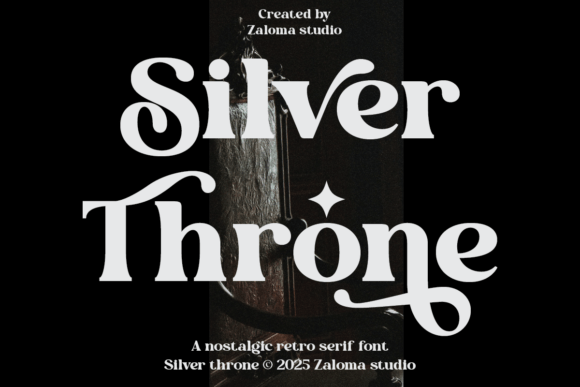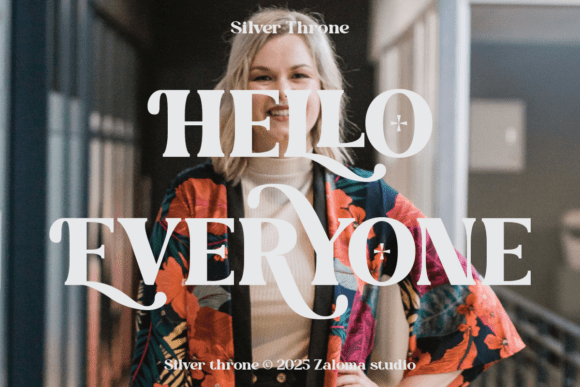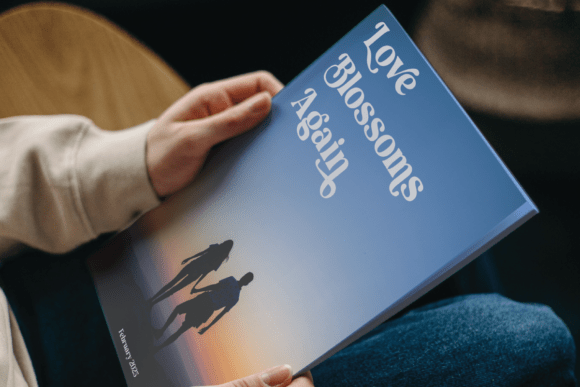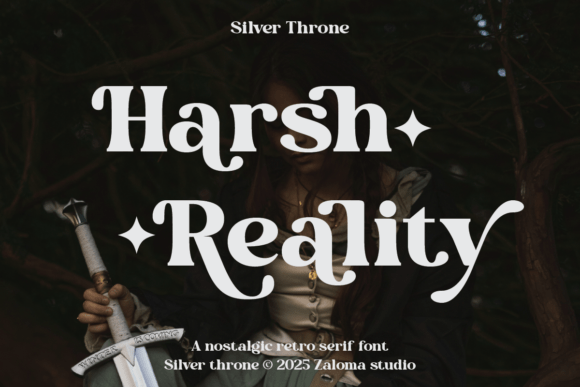
Silver Throne Font: Retro Serif for Elegant Branding & Logo Design
About the Silver Throne Font
We are excited to introduce Silver Throne Font, a must-have typeface for any serious designer. Silver Throne is a sophisticated retro serif font designed with a nostalgic and elegant touch. This font features bold letterforms with distinctive artistic details, making it an excellent choice for branding, logos, posters, book covers, and other classic-themed designs.
The uppercase letters exhibit a strong and luxurious presence, perfect for creating a striking visual impact. Meanwhile, the lowercase letters incorporate unique decorative elements, such as curved strokes and elegant flourishes, adding a refined and vintage character to the text.
With its timeless aesthetic, “Silver Throne” is ideal for projects that aim to evoke a sense of royalty, nostalgia, and sophistication. Whether used for editorial designs, luxury packaging, or creative headlines, this font effortlessly blends classic charm with modern appeal, making it a versatile choice for designers looking to create a refined and memorable visual identity.